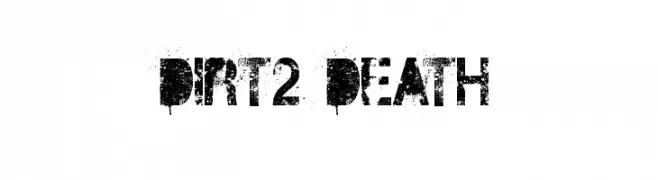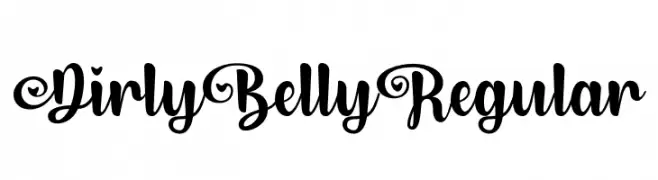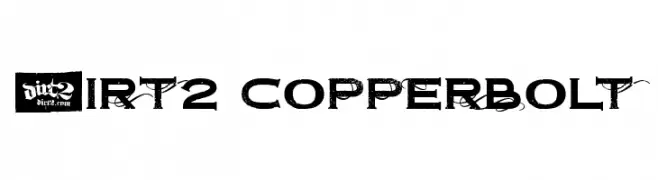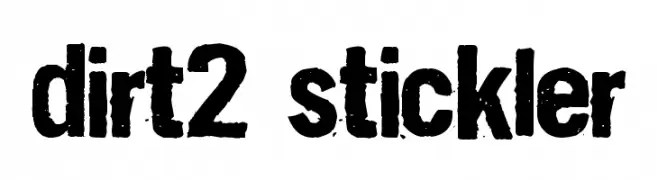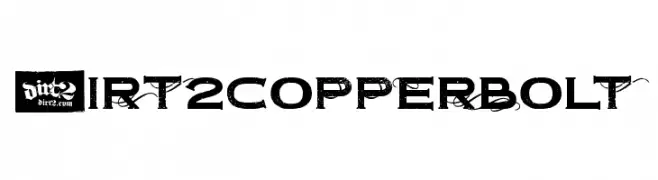
• Dirgantara-Regular
A cursive, handwritten-style font with elegant, flowing characters.
• Dirly Belly Regular
A bold, whimsical script font with elegant swirls and loops.
• Dirly Belly Regular
A playful, bold script font with flowing, interconnected characters.
• Dirt Road
A bold, hand-painted style font with a rustic and playful charm.
• Dirt2 Copperbolt
A distressed, grunge-style font with decorative swirls and splatters.
• DIRT2 DEATH
A distressed, grungy font with a textured, weathered appearance.
• Dirt2 Echo
A bold, distressed font with a grungy, vintage texture and shadow effect.
• Dirt2 Echo
A bold, distressed font with a vintage, textured appearance.
• Dirt2 Stickler
A bold, distressed font with a rugged, textured appearance.
• Dirt2Copperbolt
A grunge, distressed font with decorative elements and a bold, edgy style.